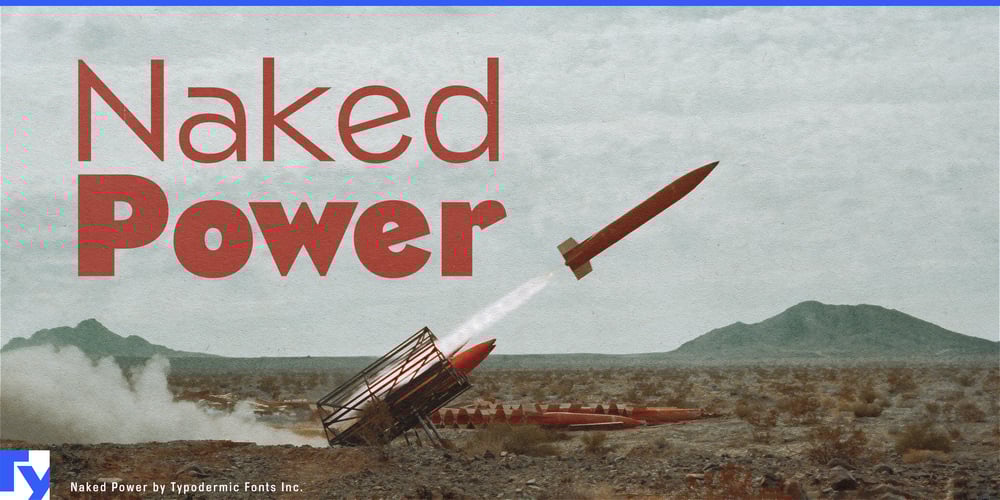
Naked Power
Naked Power font
Naked Power Font Family was designed by Ray Larabie, Chikako Larabie and published by Typodermic. Naked Power contains 16 styles and family package options. Naked Power strips design down to its essence, revealing the raw beauty of geometry in every curve and line. This sans-serif typeface doesn’t just nod to the iconic fonts of the early 20th century—it struts confidently into the present, turning heads and challenging the status quo of modern minimalism.Imagine letters that stand as boldly as Art Deco skyscrapers against a clear sky. Naked Power’s clean lines and distinctive shapes aren’t just design elements; they’re statements of intent. Each character exudes the confidence of a bygone era when typography was as much about revolution as it was about readability. But Naked Power isn’t content to be a one-trick pony in the typographic circus. With eight weights in its arsenal, it’s ready for any design challenge you throw its way. From whisper-thin lines that speak of elegance and restraint to bold, muscular forms that command attention, Naked Power flexes its typographic muscles across the spectrum. And when you need that extra oomph? Its italics lean in like a confidant sharing a scandalous secret, adding just the right touch of emphasis and style.This typeface doesn’t just cross borders; it erases them. With support for a vast array of Latin-based European writing systems, Naked Power speaks fluently from the fjords of Norway to the sun-drenched piazzas of Italy. It’s as comfortable on a Helsinki tech startup’s landing page as it is on a Parisian fashion house’s latest campaign. Ready to strip your designs down to their powerful essence? Let Naked Power be your typographic muse. Whether you’re crafting a logo that needs to stand the test of time, designing a website that breaks free from the bland, or creating a poster that stops people in their tracks, Naked Power is your ally in the fight against the ordinary.With Naked Power, you’re not just setting type; you’re setting trends, challenging conventions, and revealing the true strength that lies in simplicity. It’s time to undress your designs and show the world what real typographic power looks like.